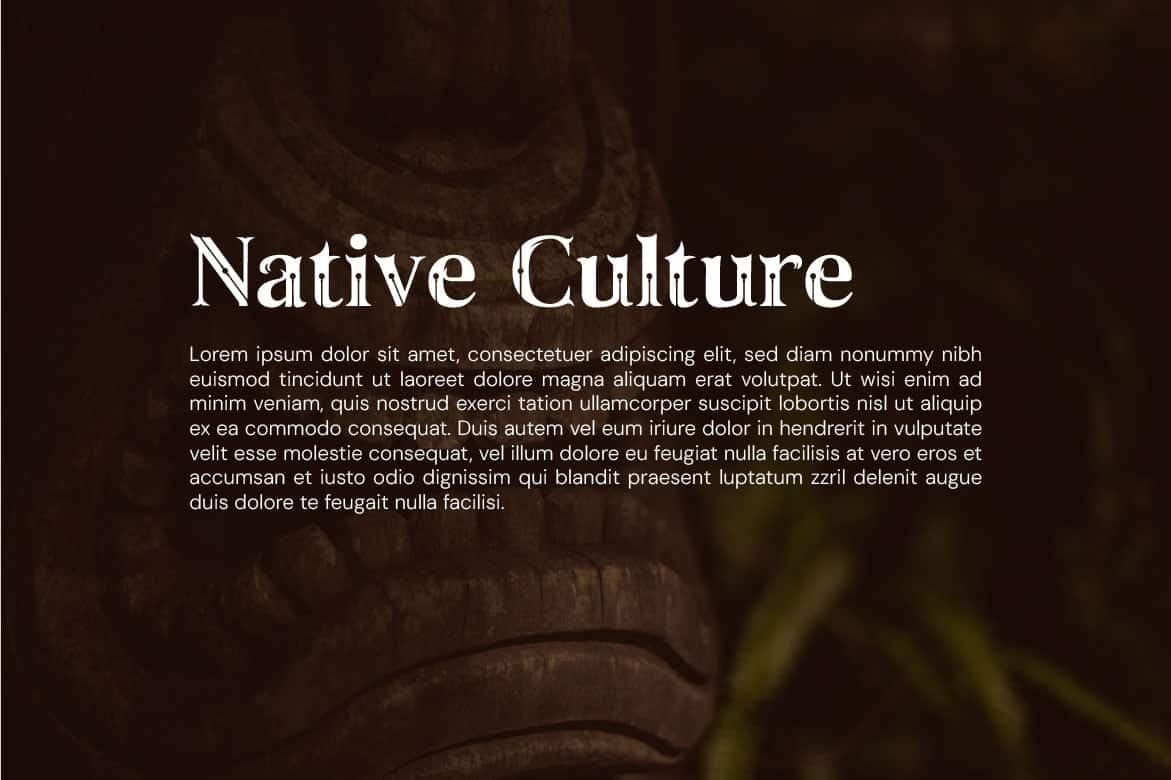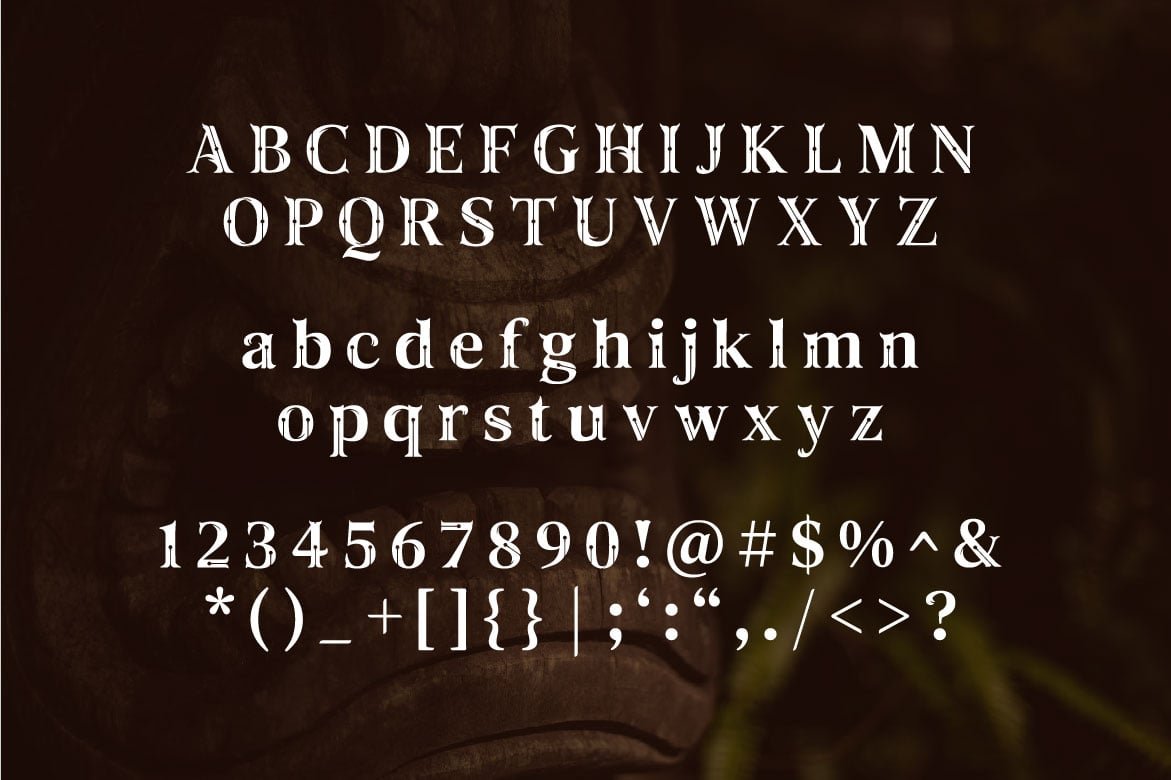
Taiganja – Culture Serif Font
Taiganja
Taiganja - Serif Font inspired by the traditions, art, aesthetics of a culture for your personal or business purpose.